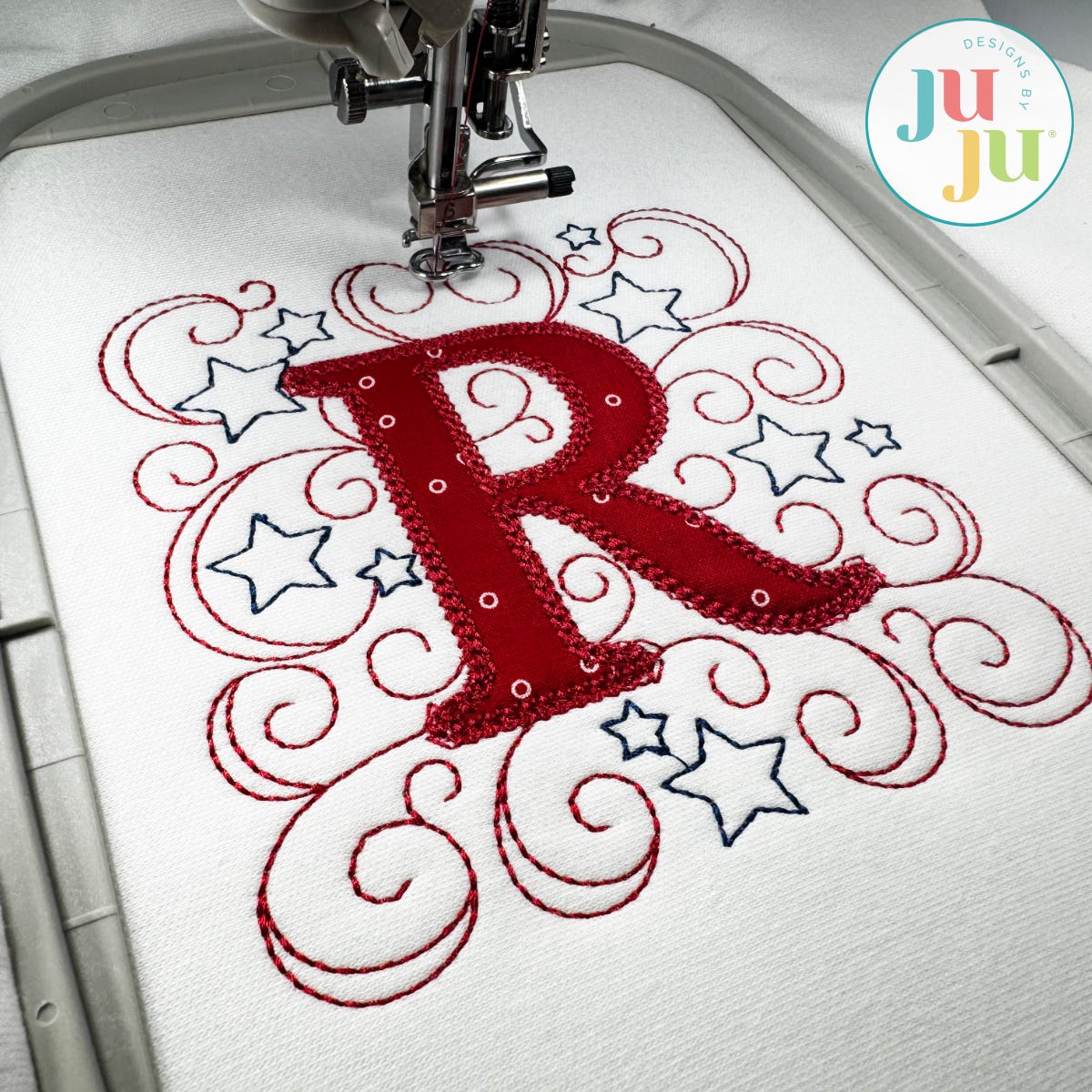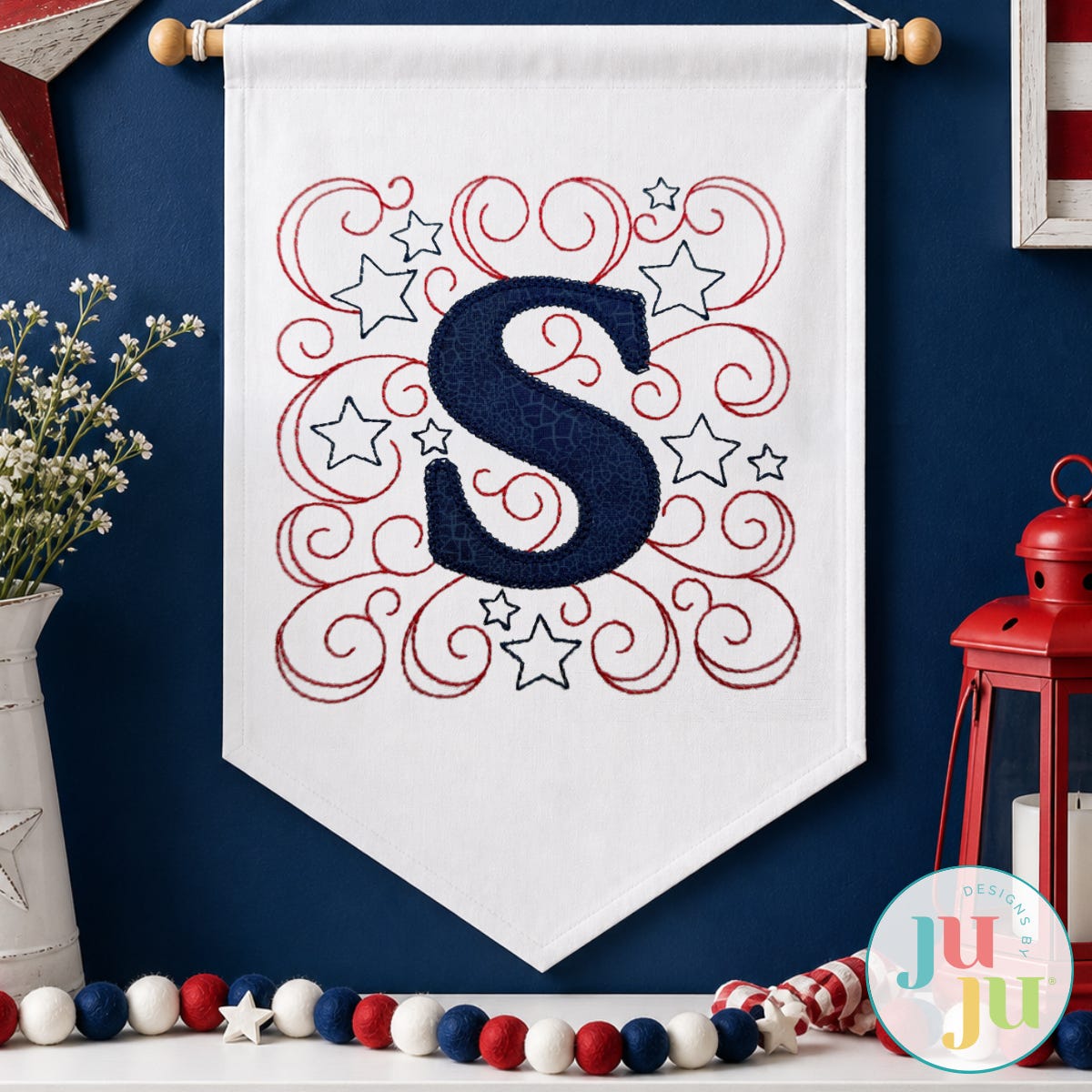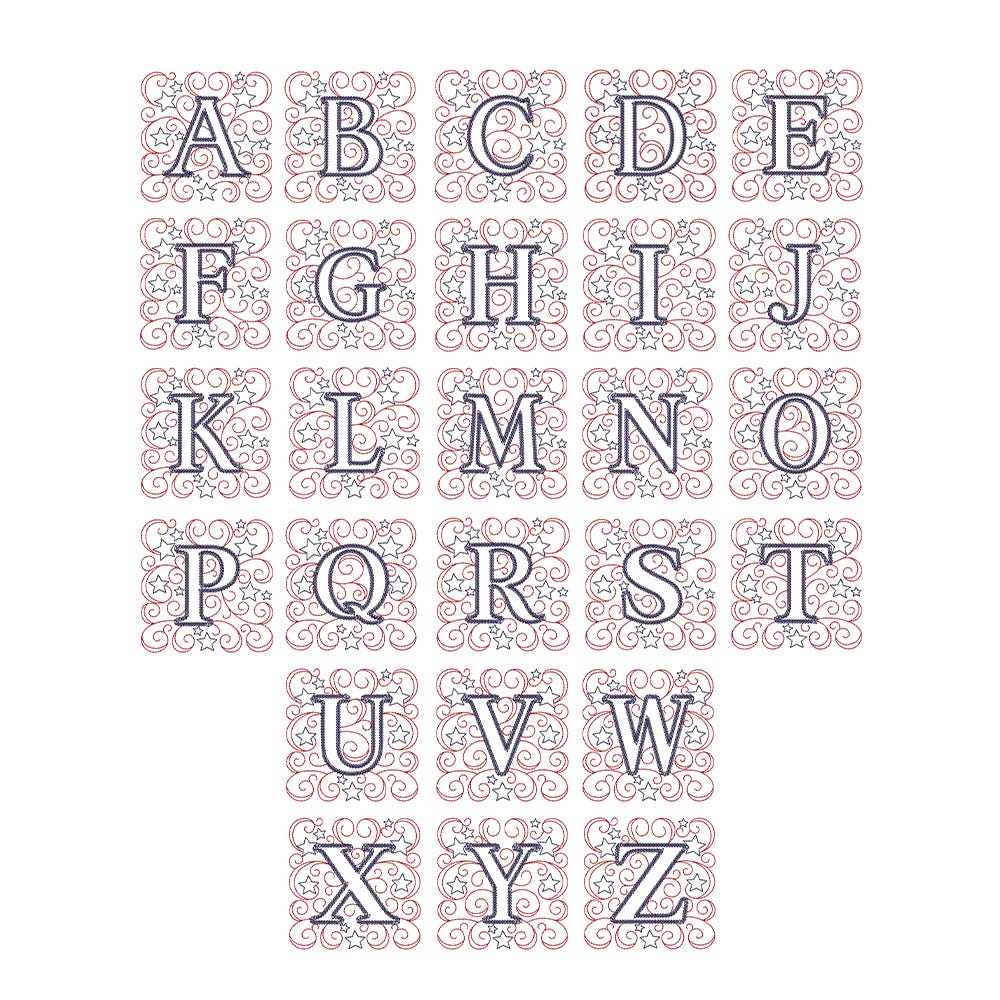
Your monograms will shine with timeless charm using our Stars and Swirls Monogram! This beautiful monogram features classic serif-style applique letters finished with a decorative chain stitch. Each letter is framed by embroidered swirls and stars for a festive, Americana-inspired look.